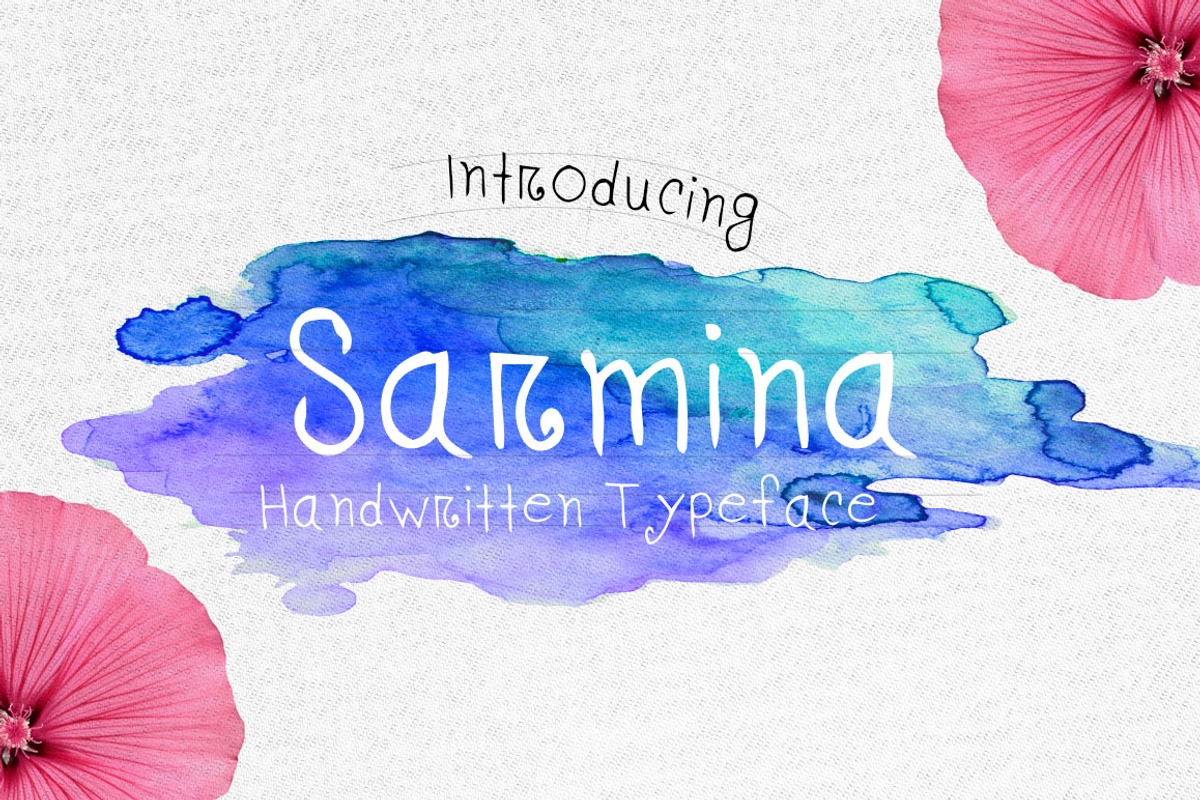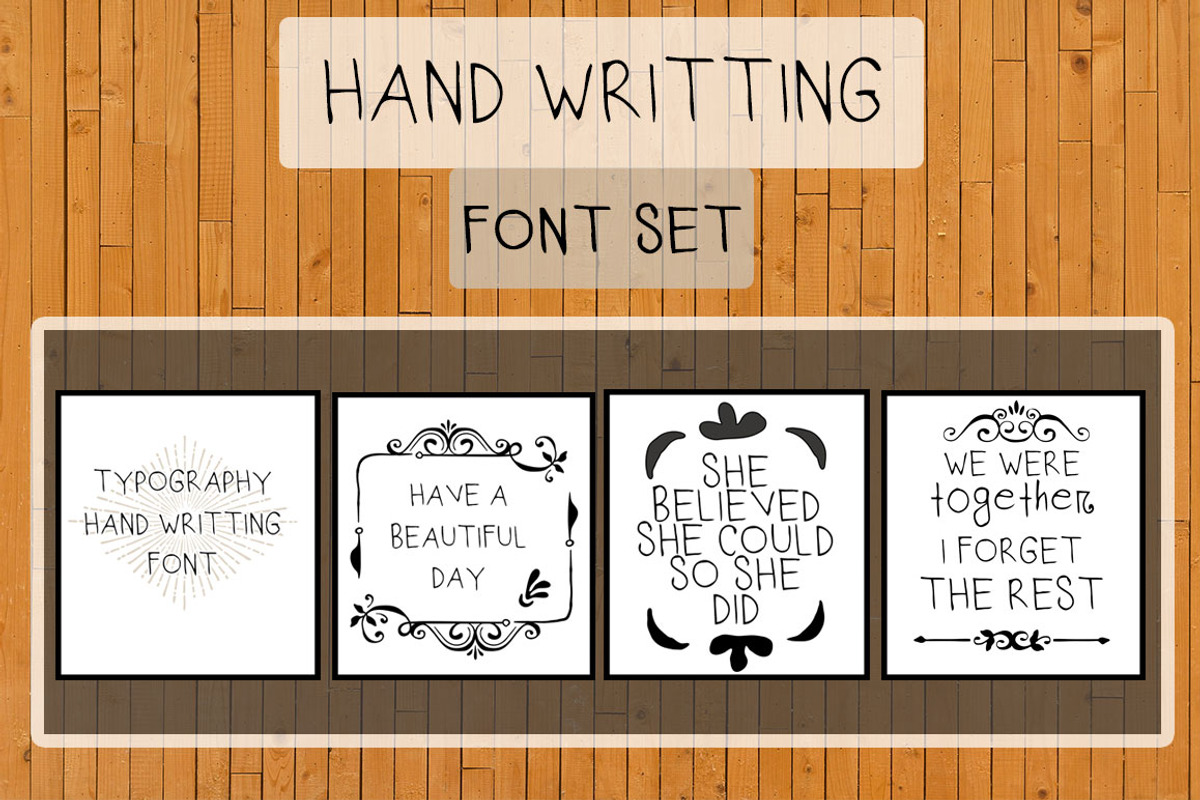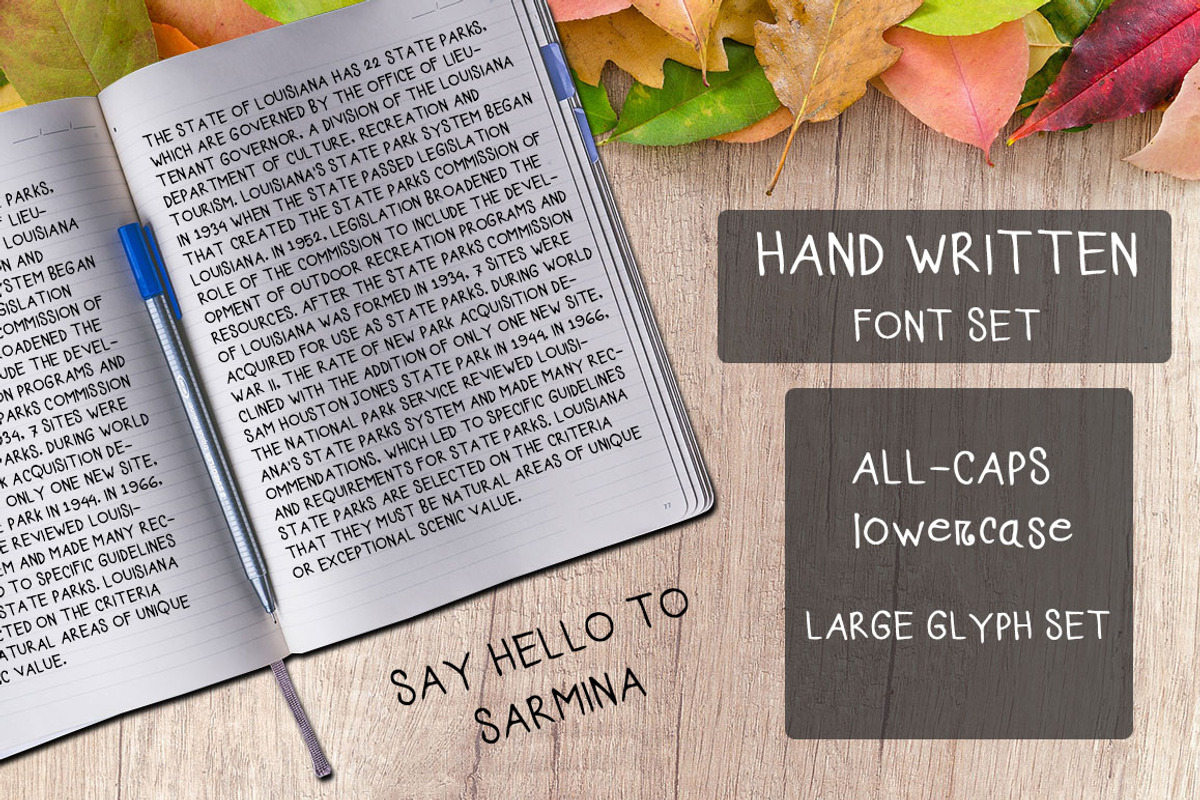
Sarmina Handwritten Font
Add a little sparkle to your designs with Sarmina! A clean & classy handy style font set, perfect for creating authentic hand-lettered text quickly & easily.
With exaggerated strokes and an extra bouncy baseline, Sarmina has an unmistakable charm; perfect for logos, headers, company or personal branding, product packaging, cards & handwritten quotes and chalk board design.
Lowercase Alternates • Sarmina comes with an entire alternate lowercase glyph set. This is accessible simply by turning on 'Stylistic Alternates' in any software with OpenType capabilities. For anyone having trouble accessing the alternates via this method, I've included them as their own separate font file - just install this as normal and select 'Sarmina' in your text-tool :)
All-Caps Version • Have you ever noticed that script fonts tend to be a bit tricky when it comes to typing in all-caps? That's why I've included a totally separate set of A-Z letters - designed to work in harmony with each other during those moments when you need to hit your caps-lock button and go a bit wild!
Large Glyph Set • Sarmina comes with a large range of glyphs including punctuation, numerals, international language support, ligatures & additional extra glyphs for some lowercase characters.